iOS 16 exploit lets you set the system font to Comic Sans (and other things)
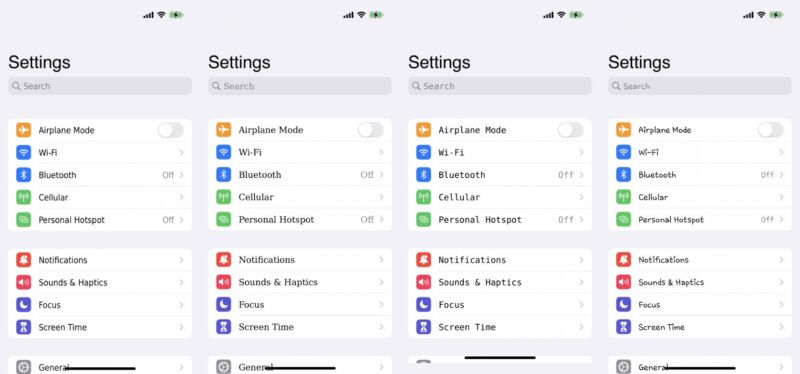
If you like your iPhone but hate the San Francisco typeface, developer Zhuowei Zhang has posted a neat tool to Github—an app that can temporarily “overwrite” the iOS system font with another one, giving your phone a new, non-Apple-sanctioned look.
The app doesn’t require any kind of jailbreak, but does need “iOS 16.1.2 or below” to work, since it relies on a kernel execution bug (CVE-2022-46689) patched in iOS 16.2. If you’ve already installed iOS 16.2—which we’d advise you to do, for security reasons—you won’t be able to experiment with the hack. Any font changes will be reverted by a device reboot, and apps that don’t use the default San Francisco typeface won’t change.
The app includes a number of pre-installed fonts, many of which seem designed to irritate the eyes of Apple’s UI designers. Comic Sans MS leads the charge in that regard, but Segoe UI (Windows’ and Microsoft’s default font of choice) and Samsung’s “Choco Cooky” (a distant cousin of Comic Sans) are also included. Custom fonts can be installed as long as they’re iOS-compatible.
Apple used to support more extensive customization of its user interfaces back in the classic Mac OS days, when everything from the system font to the window borders could be customized using the Appearance Manager. Those settings disappeared in the initial releases of Mac OS X, and changing the look and feel of any of Apple’s operating systems has only gotten harder in recent years as Apple has taken more and more steps to protect system files from modification and tampering (benign and otherwise).
Designing your interfaces around a single, predictable font makes it easier to test things and harder for users to break stuff by using a bizarre monospaced typeface that causes rendering errors. But these screenshots do kind of make me wish that OS designers would leave that up to me like they did in the old days.